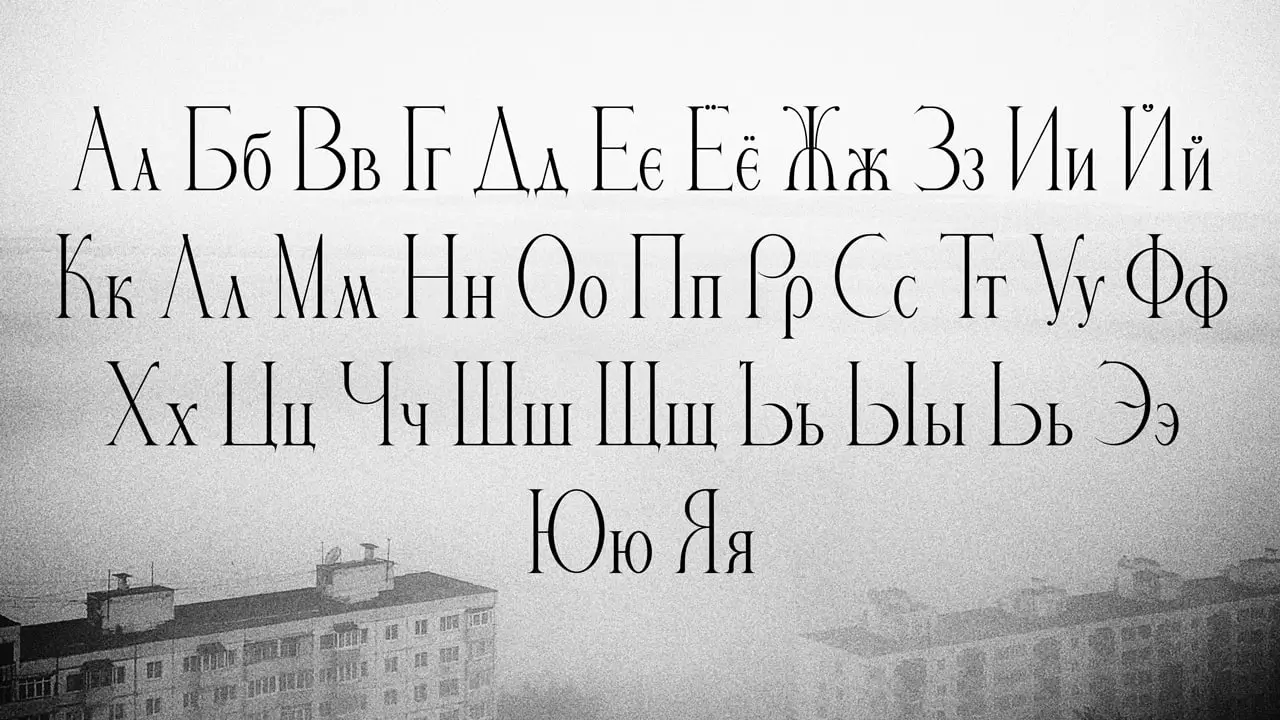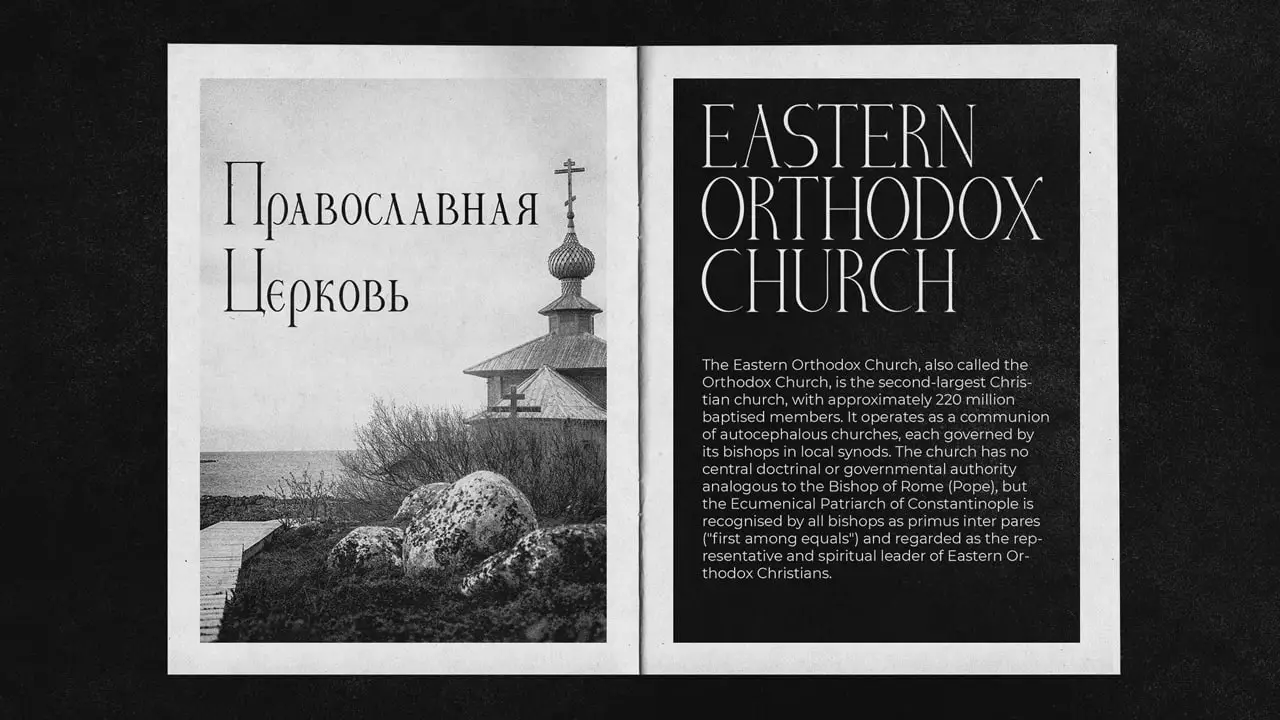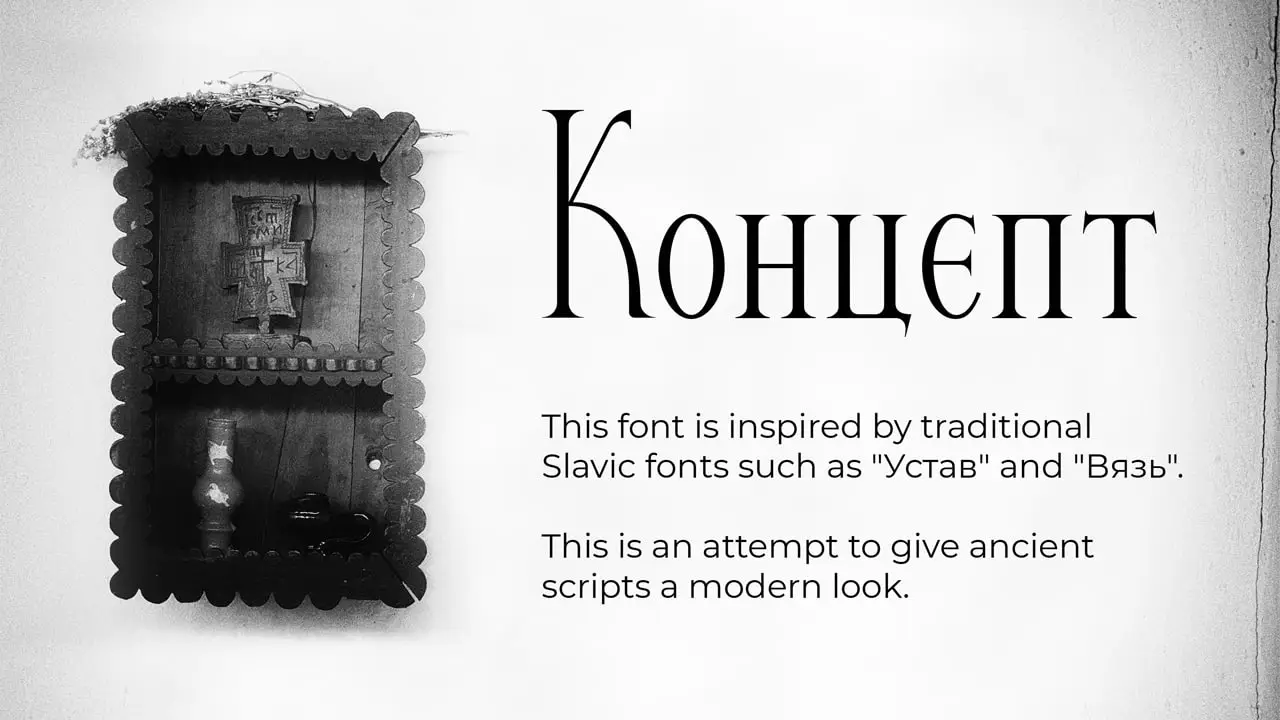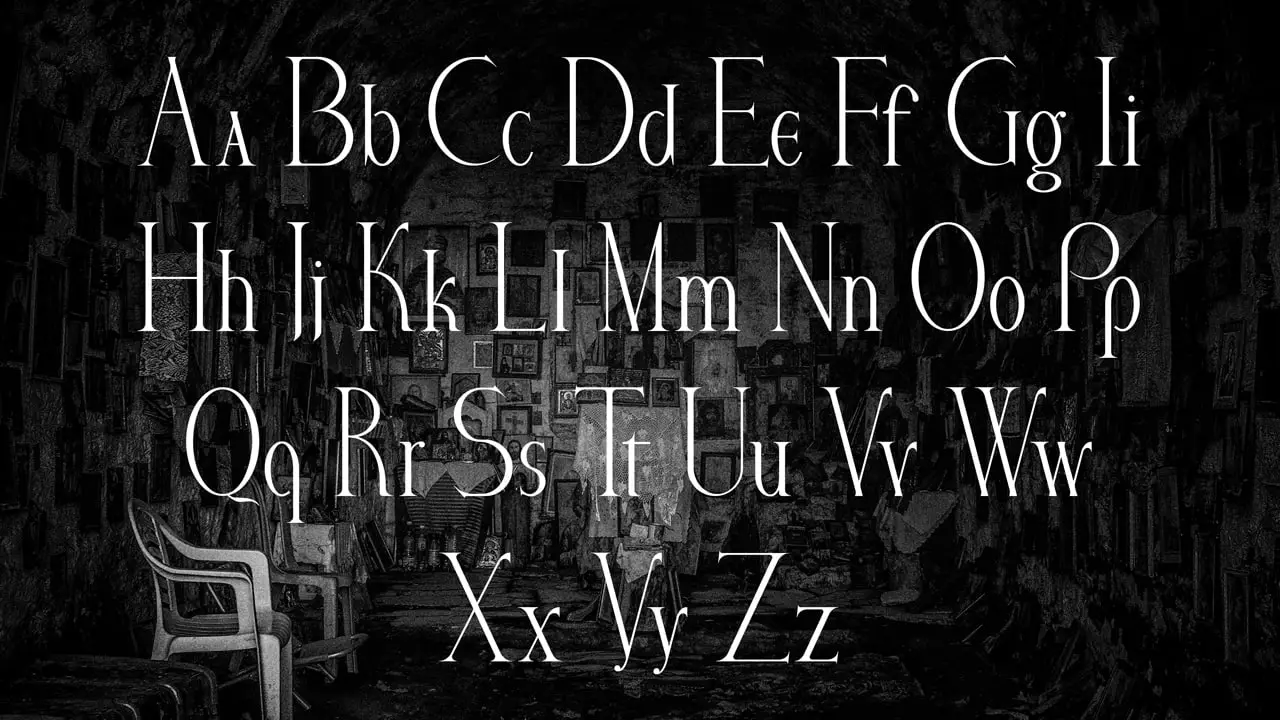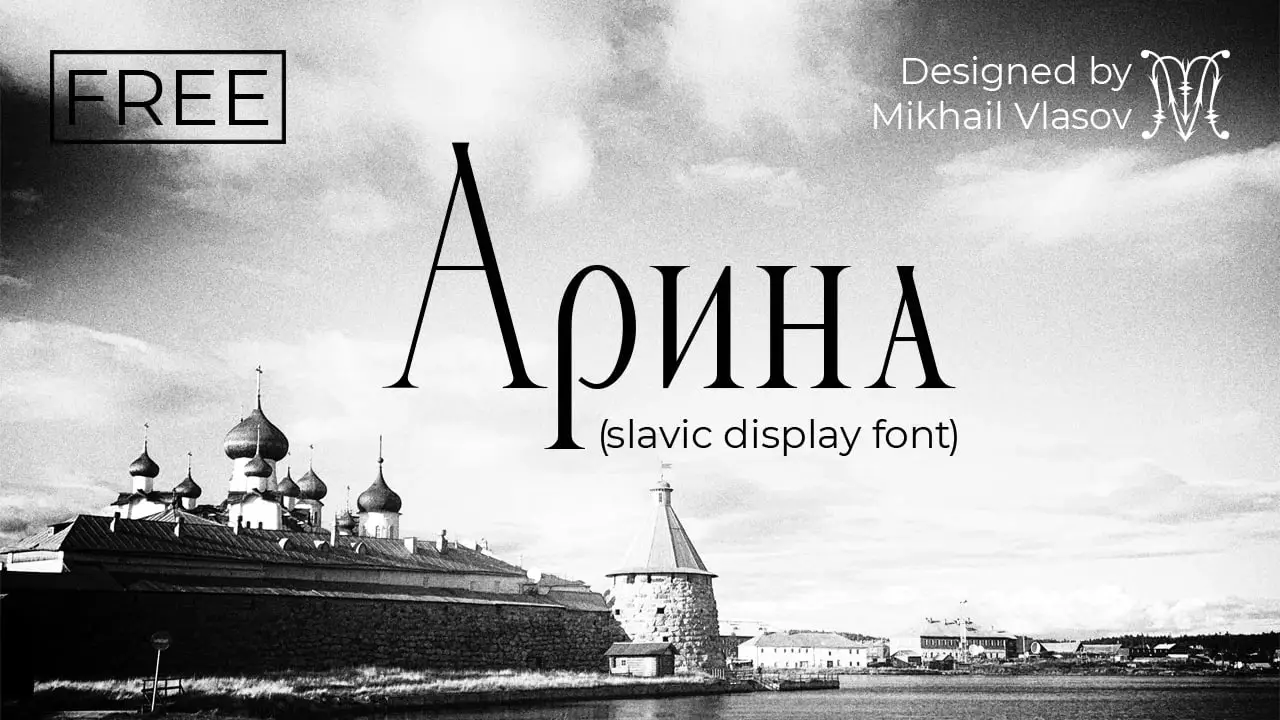
Arina Font
Introducing the Arina Font, a beautifully crafted typeface that combines elegance with versatility. This font is perfect for a variety of design projects, from branding and logos to web and print applications.
• Multiple styles and weights for diverse applications
• Clean and modern design
• Easy to read at various sizes
Utilize the Arina Font for creating stunning logos, elegant invitations, or modern website typography. Its versatility makes it suitable for both professional and personal projects.